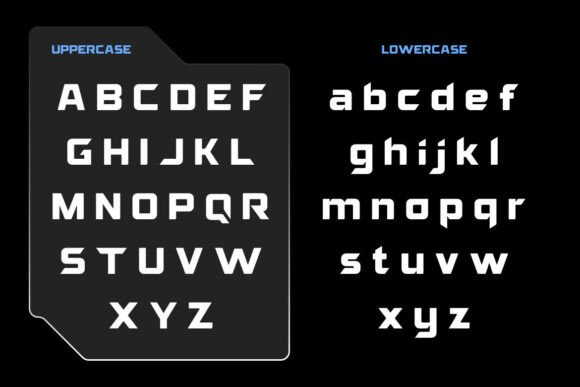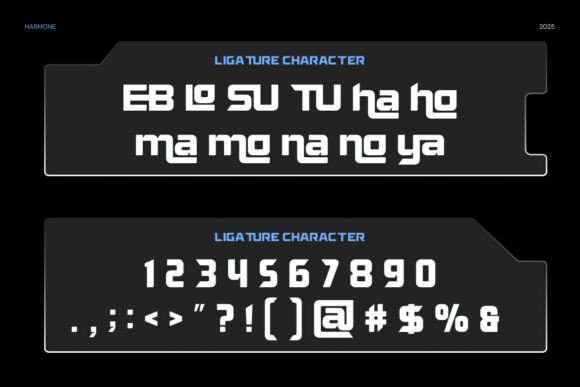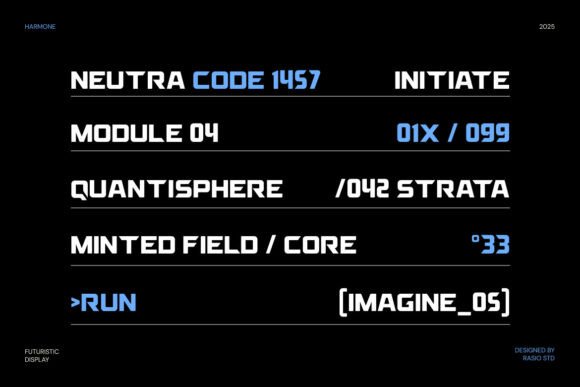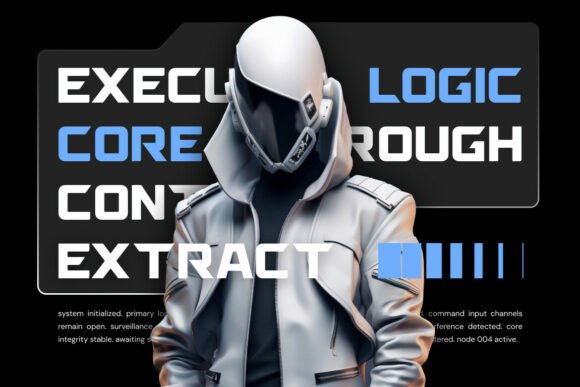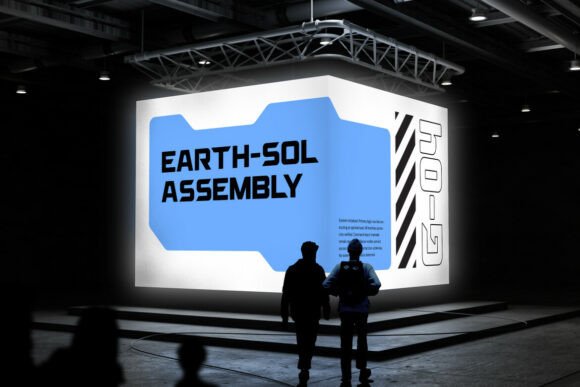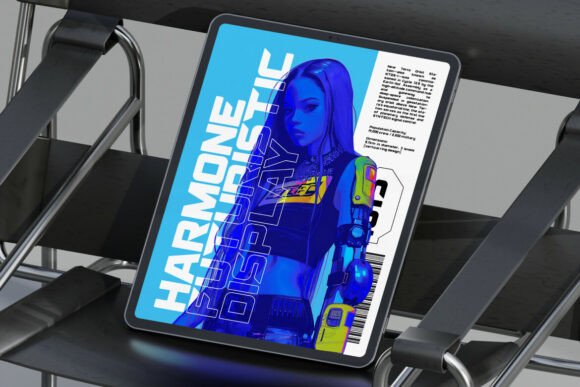
Introducing Harmone Font: The Ultimate Choice for Futuristic and Innovative Designs
In the world of digital design, typography plays a crucial role in conveying the message and aesthetic of a brand. For tech startups, gaming brands, esports teams, and digital product launches, a bold and futuristic font is essential to project innovation, technology, and digital sophistication. This is where Harmone Font comes in – a cutting-edge display sans font designed to elevate your brand’s visual identity.
What is Harmone Font?
Harmone Font is a bold, futuristic display sans font that embodies the essence of innovation and digital sophistication. Its sleek and modern design makes it highly relevant for various applications, including tech startups, gaming brands, esports teams, digital product launches, sci-fi posters, YouTube thumbnails, app interfaces, NFT projects, cyber-themed merchandise, and experimental branding systems.
Key Features of Harmone Font
- Bold and Futuristic Design: Harmone Font boasts a bold and futuristic design that is sure to grab attention and make a lasting impression.
- Highly Versatile: This font is highly versatile and can be used for various applications, from digital product launches to print materials.
- Perfect for Tech and Gaming Brands: Harmone Font is specifically designed to cater to the needs of tech startups, gaming brands, and esports teams.
- Easy to Read: Despite its bold and futuristic design, Harmone Font is easy to read, making it perfect for use in various digital and print materials.
Use Cases for Harmone Font
Harmone Font is an excellent choice for various design projects, including:
- Tech Startups: Establish a strong brand identity with Harmone Font and convey innovation and digital sophistication.
- Gaming Brands: Elevate your gaming brand’s visual identity with Harmone Font and appeal to a wider audience.
- Esports Teams: Represent your esports team with a bold and futuristic font that exudes professionalism and expertise.
- Digital Product Launches: Create a lasting impression with Harmone Font and make your digital product launch stand out.
- Sci-Fi Posters: Add a touch of futurism to your sci-fi posters with Harmone Font and captivate your audience.
- YouTube Thumbnails: Increase click-through rates with Harmone Font and make your YouTube thumbnails stand out.
- App Interfaces: Enhance the user experience with Harmone Font and create a seamless and modern app interface.
- NFT Projects: Give your NFT projects a unique and futuristic touch with Harmone Font and make them stand out.
- Cyber-Themed Merchandise: Create eye-catching cyber-themed merchandise with Harmone Font and appeal to fans of technology and gaming.
Why Choose Harmone Font?
With Harmone Font, you can:
- Establish a Strong Brand Identity: Create a lasting impression and establish a strong brand identity with Harmone Font.
- Convey Innovation and Digital Sophistication: Project innovation, technology, and digital sophistication with Harmone Font and appeal to a wider audience.
- Easily Read and Understand: Ensure that your message is easily read and understood with Harmone Font, even in digital and print materials.
In conclusion, Harmone Font is an excellent choice for designers and crafters looking to create futuristic and innovative designs. Its bold and modern design, versatility, and ease of readability make it perfect for various applications. Whether you’re a tech startup, gaming brand, esports team, or digital product launch, Harmone Font is sure to elevate your brand’s visual identity and make a lasting impression.